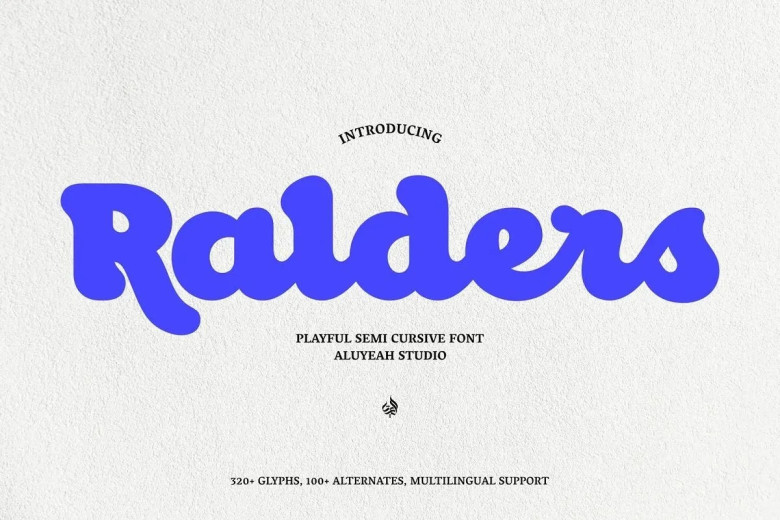
Ralders Font
Ralders is an exciting new Semi Cursive font designed specifically to ignite creativity among creatives! Allow yourself to express yourself by using Ralders, an ideal typeface that adds an air of playfulness and energy to any creations!
Ralders offers over 320 characters and 100+ alternative styles so you have endless customization opportunities when customizing Ralders to fit your creative vision! Use it for anything from packaging designs, invitations and logo designs as well as social media posts – unleash your imagination today!
Ralders Retro Script Font